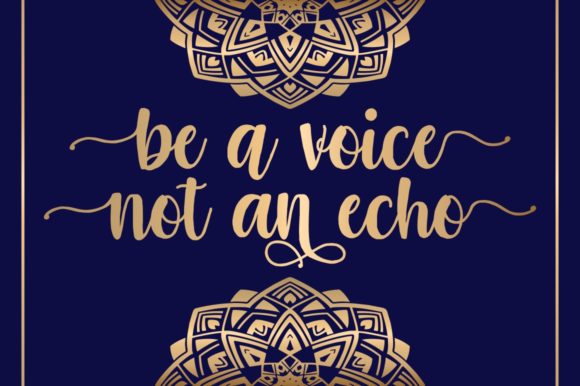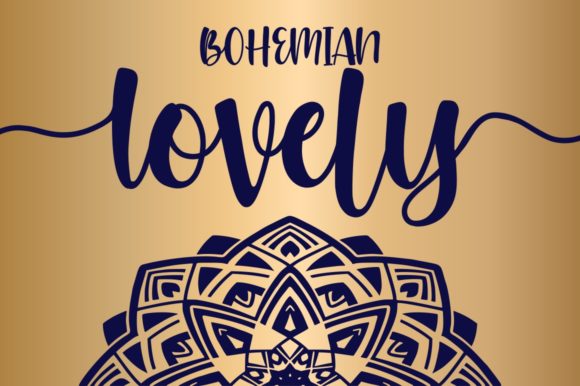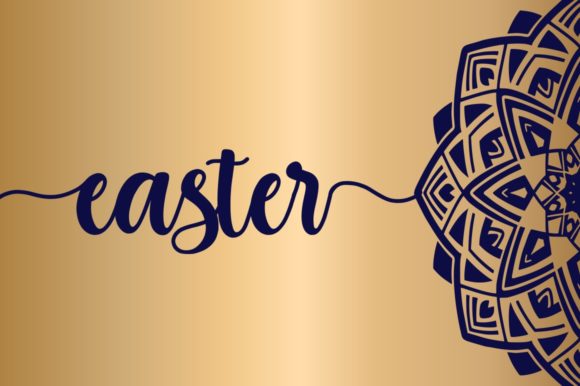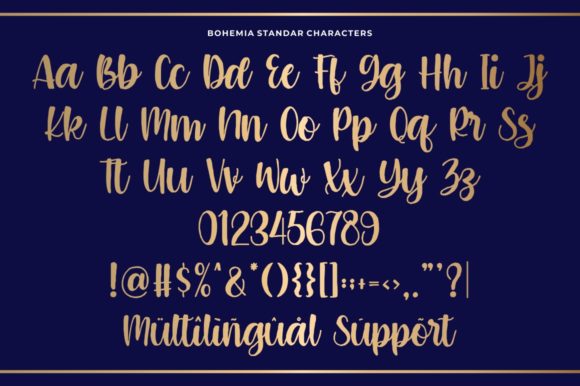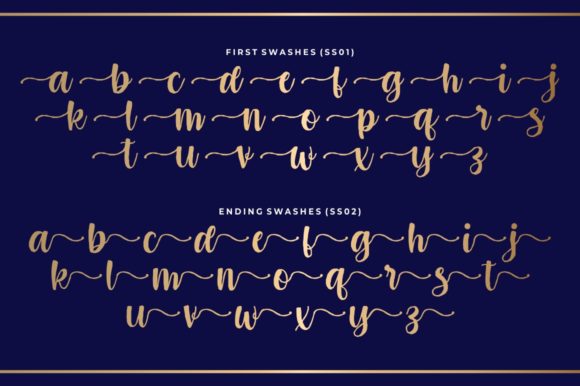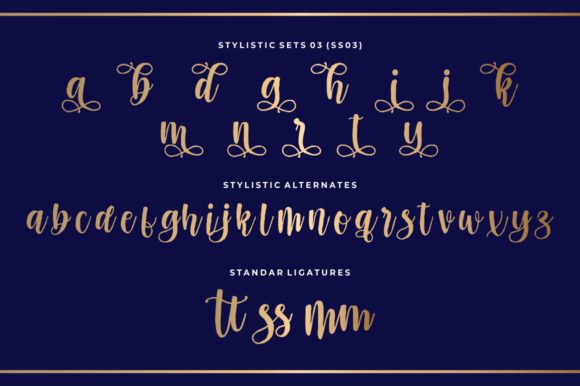
Bohemia Font
About Bohemia Font
Bohemia is a gorgeous and elegant script with wonderfully playful swashes. It will turn any design project into a true standout.